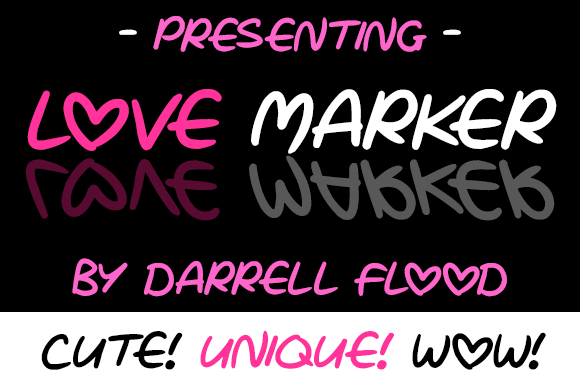
Love Marker Font
About Love Marker Font
The Love Marker is a neat, hand-drawn font in a felt marler style. Casual and friendly. Perfect for love letters and board notes!